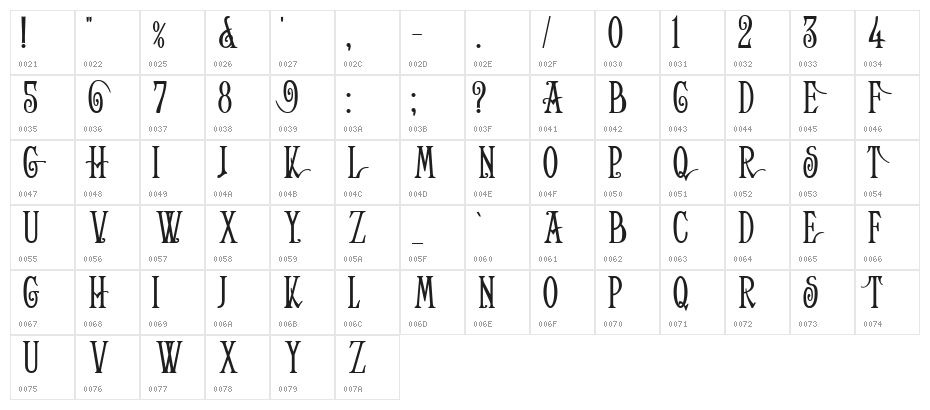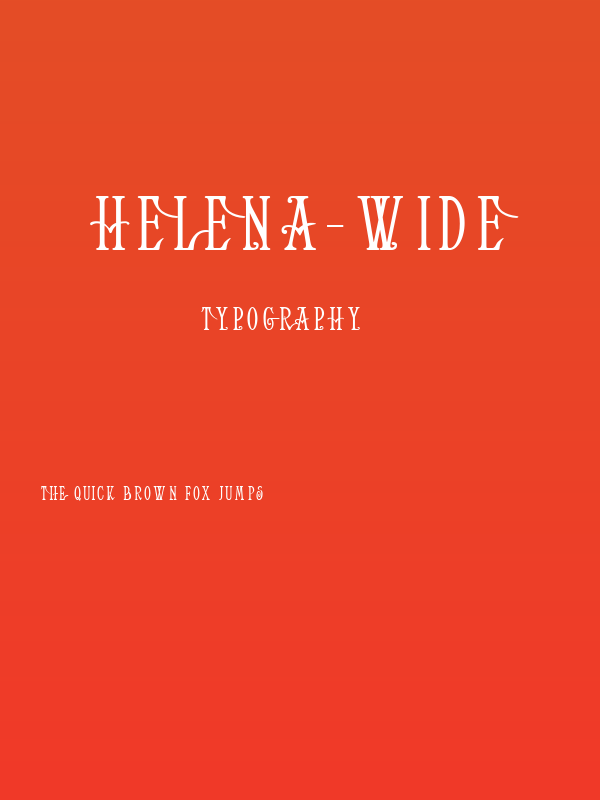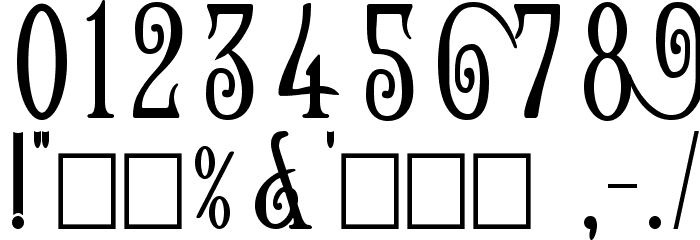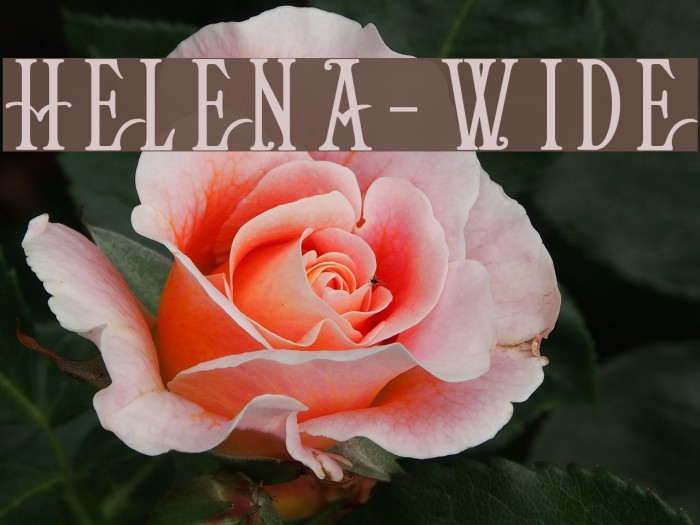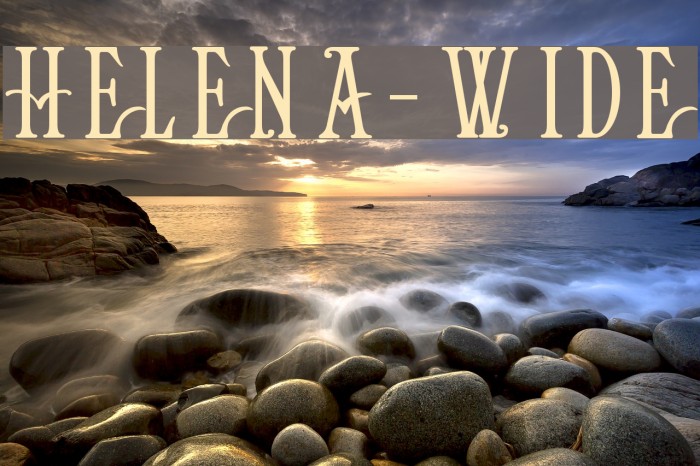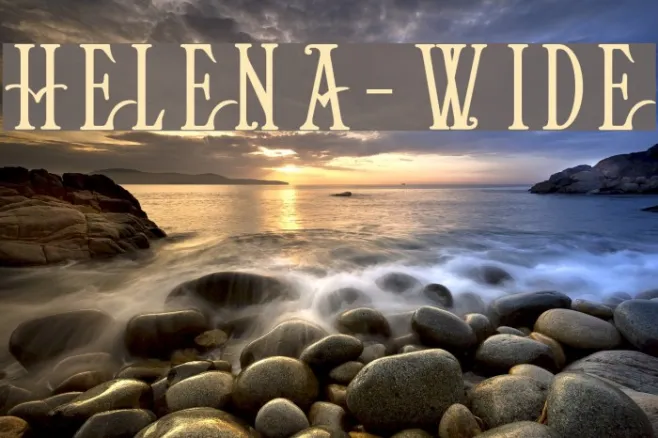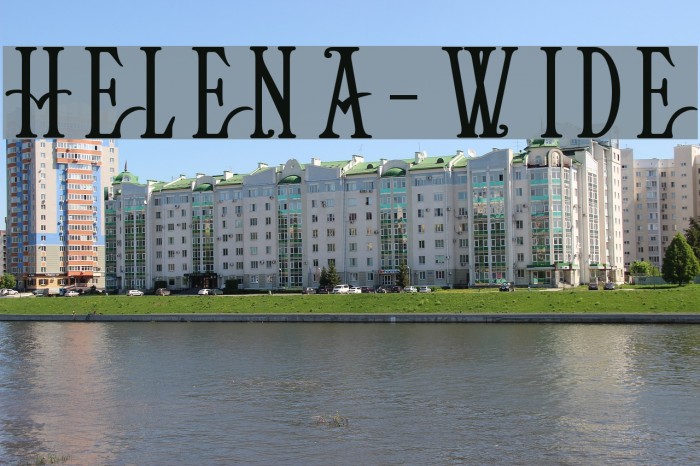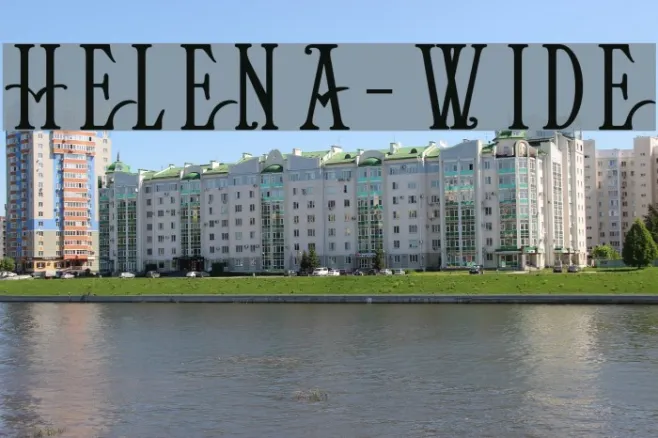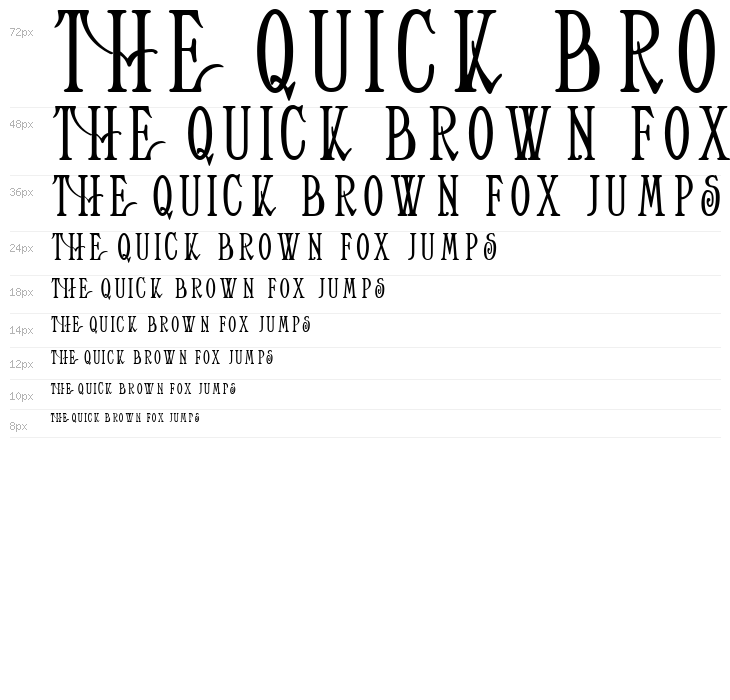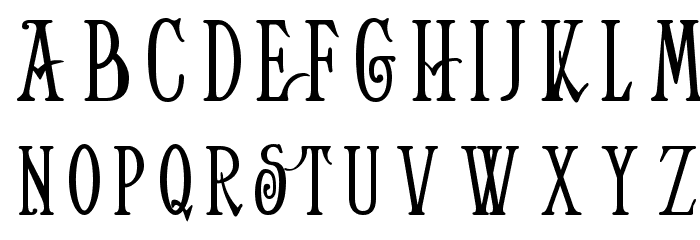
Helena-Wide Font
Helena-Wide Description
This font features a unique and decorative style with an artistic flair. The uppercase letters are characterized by elegant swirls and curves, adding a whimsical touch to each character. The lowercase letters maintain a similar style, ensuring consistency throughout the typeface. Numbers are equally stylized, with some digits incorporating spiral elements that enhance the overall playful aesthetic. Special characters follow the same decorative theme, making this font suitable for creative and eye-catching designs. The font's distinct personality makes it ideal for projects that require a touch of elegance and creativity.
| Use Case | Headlines, Logos, Artistic projects |
| Proposed Projects | Ideal for invitations, greeting cards, posters, and branding that require a unique and artistic touch. |